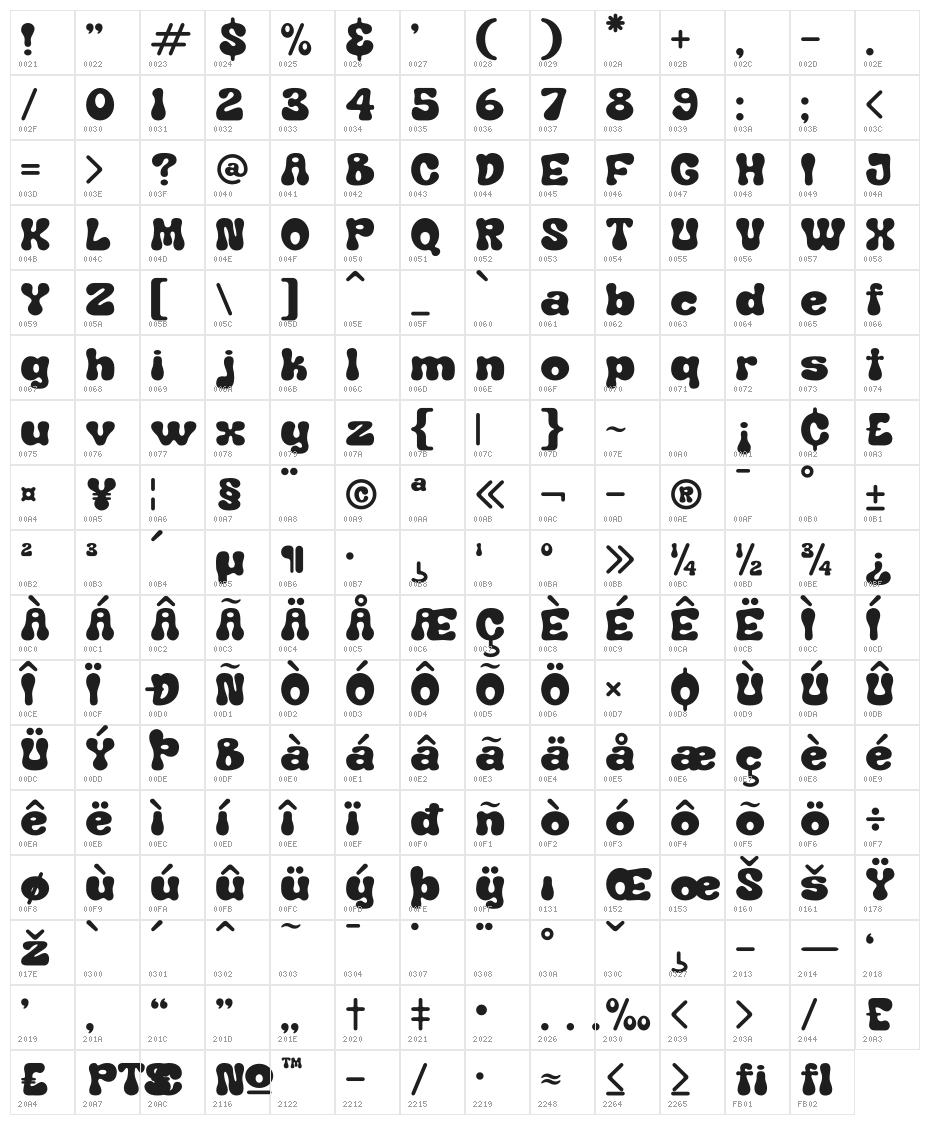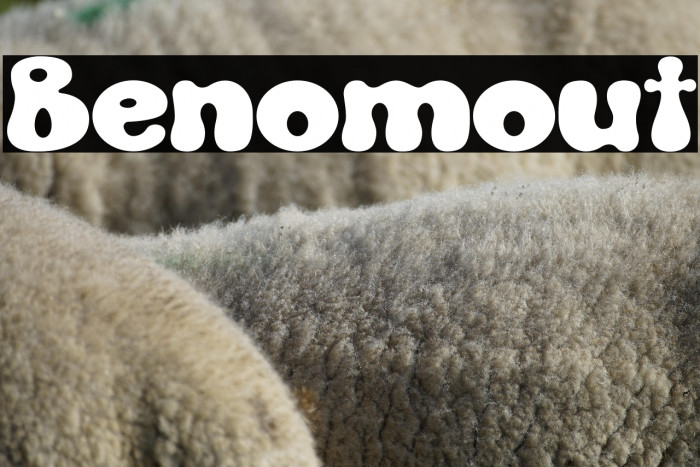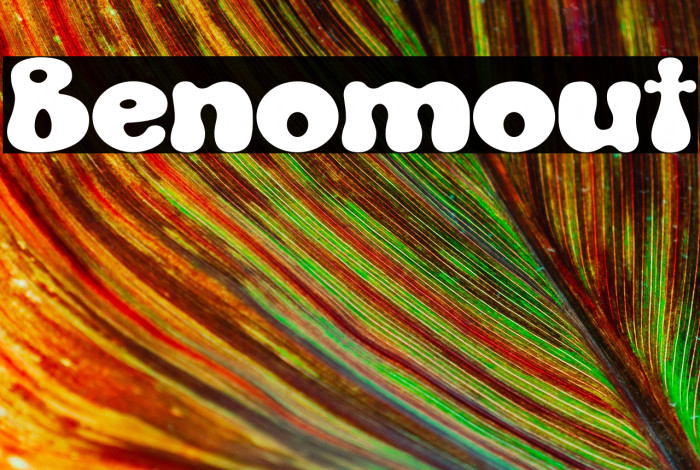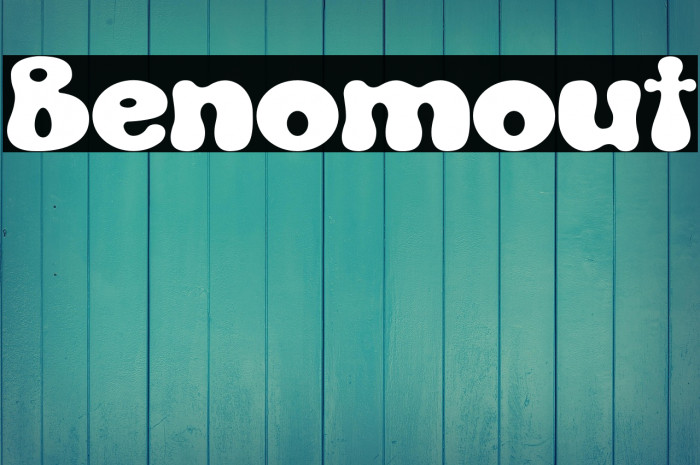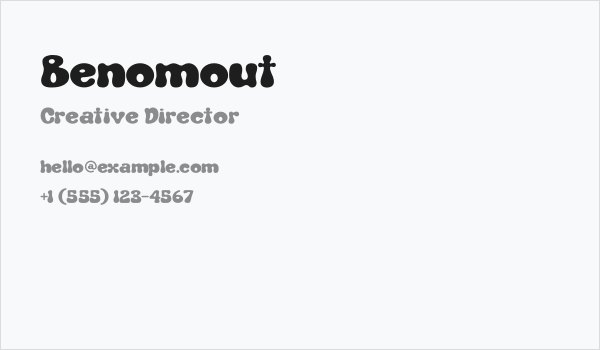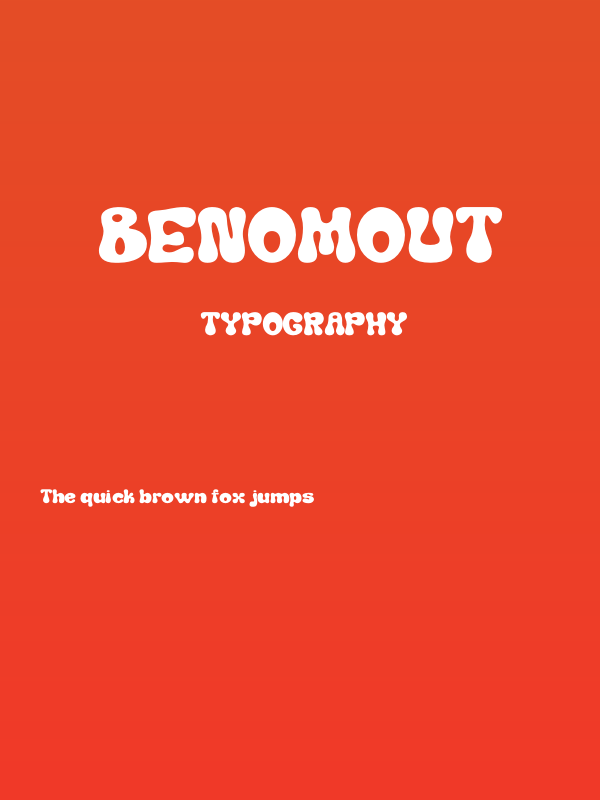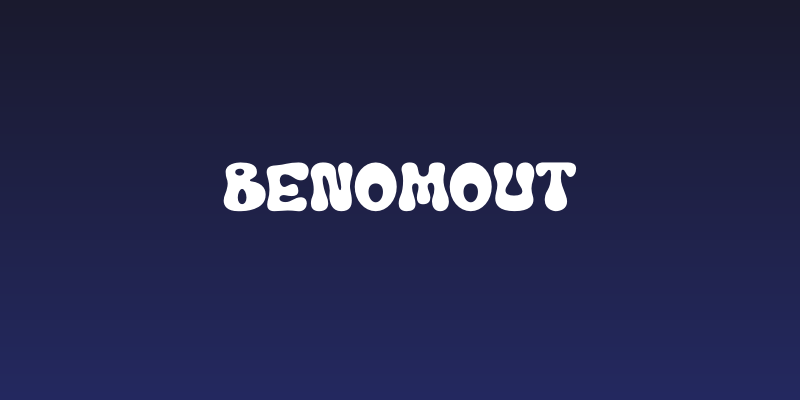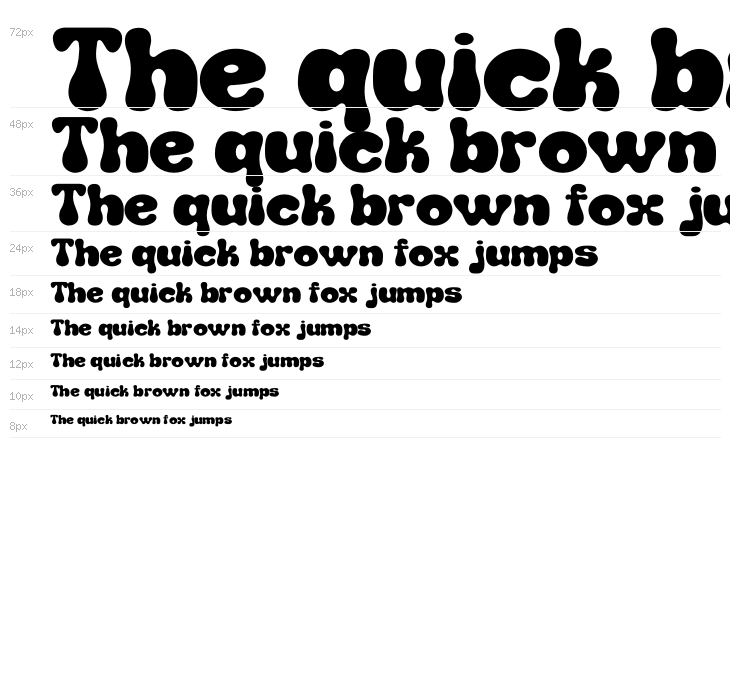
Benomout Font
Benomout Description
This playful and bold font features rounded, bubbly characters that exude a sense of fun and whimsy. The letters are thick and have a soft, almost cartoonish appearance, making them highly distinctive and eye-catching. The font maintains a consistent weight throughout, with smooth curves and a slightly irregular shape that adds to its charm. The numbers and special characters follow the same playful style, ensuring a cohesive look across all text elements. This font is perfect for projects that require a lively and informal touch.
| Proposed Projects | Ideal for children's books, playful branding, party invitations, and casual posters. |